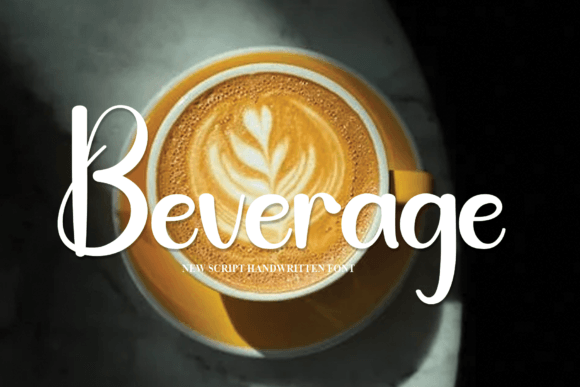
The Sweet Charm of Beverage Font: A Designer’s Delight
I still remember the time I was working on a wedding invitation project, and I just couldn’t find the right font to capture the sweet and playful vibe of the couple’s special day. That’s when I stumbled upon Beverage Font, and it instantly became my go-to choice. In this article, I’ll share my love for this beautiful handwritten font, its features, and how to make the most of it in your designs.
An Honest Review of Beverage Font
• ✨ Sweet and Friendly Vibe: Beverage Font has a warm and inviting feel to it, making it perfect for designs that require a personal touch.
• ✅ Versatility: This font is creative and adaptable, suitable for various design projects, from wedding invitations to social media graphics.
• 💕 Handwritten Charm: The font’s handwritten style adds a touch of elegance and sophistication to any design.
While Beverage Font is an excellent choice for many designs, there are a few things to keep in mind:
• 🤔 Limited Use in Small Sizes: Due to its handwritten nature, the font may not be suitable for very small sizes, as it may lose its charm and become difficult to read.
• ⚠️ Kerning Issues: As with many handwritten fonts, kerning can be a bit tricky, so make sure to adjust the spacing between letters for optimal results.
The Story Behind Beverage Font
Beverage Font was designed with the intention of creating a sweet and friendly font that captures the essence of a warm and inviting beverage. The designer aimed to create a font that would be perfect for designs that require a personal touch, such as wedding invitations, cards, and other creative projects.
A: Beverage Font is perfect for designs that require a personal touch, such as wedding invitations, cards, and other creative projects. Experiment with different sizes and colors to find the perfect fit for your design.